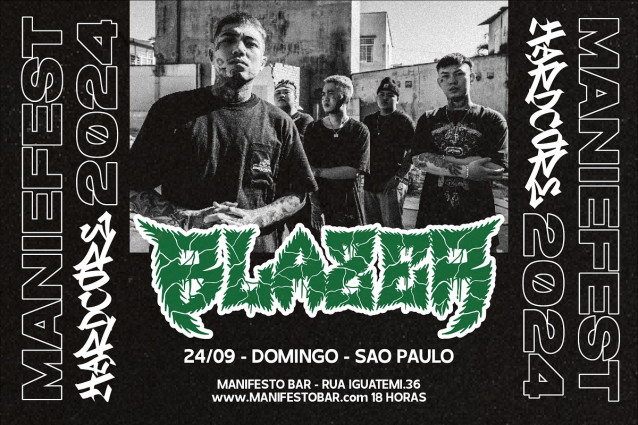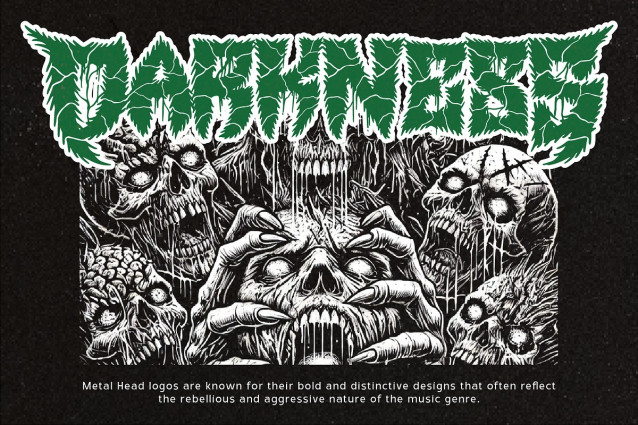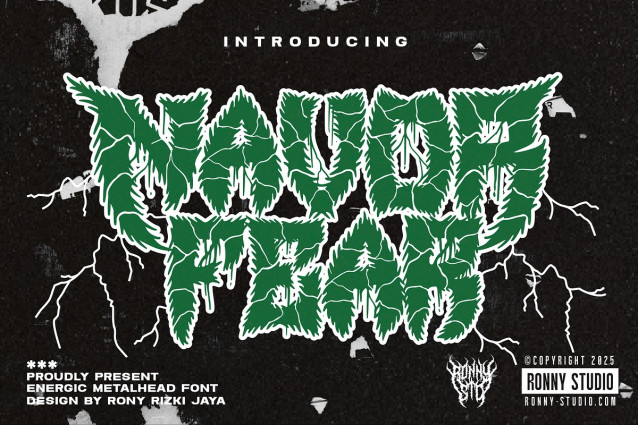
Navor Fear Font
Navor Fear Font, an electrifying metalhead font crafted for bold, rebellious design. Fueled by death metal and hardcore energy, this font delivers wild, aggressive lettering—perfect for projects that demand intensity and edge.